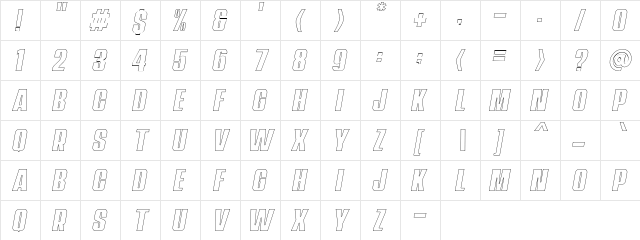
Navada Outline Italic Demo Outline Italic
Design Context for Navada Outline Italic Demo Typeface
Navada Outline Italic Demo brings ornamental detail and strong personality to headlines and identities, where visual impact matters more than quiet functionality. The dynamic lean of this cut emphasises speed and emphasis in any layout.
Font Pairing: Pair with a clean neutral sans-serif for body copy to let Navada Outline Italic Demo's character lead without overwhelming the composition.
Pro Tip: Use Navada Outline Italic Demo exclusively at display sizes — it was designed to be seen, not read at length. Let a neutral companion handle body copy.